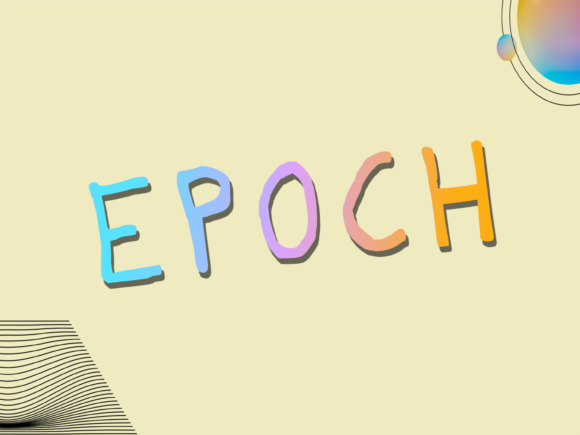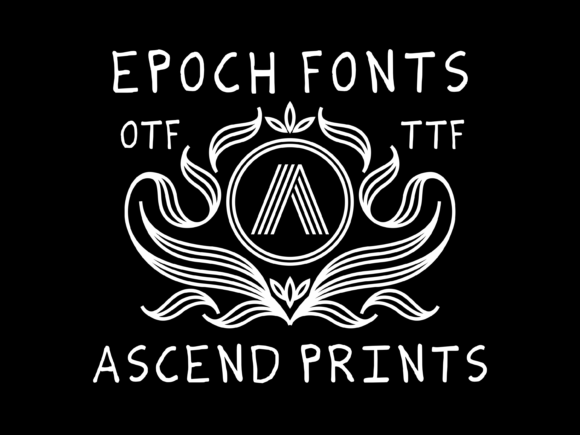
Epoch Font
About Epoch Font
Introducing Epoch, a sweet and friendly handwritten font that exudes warmth and charm. With its natural and unique style, Epoch is incredibly versatile, making it a perfect choice for a wide range of designs. The only limit is your imagination! Embrace Epoch and watch as it adds a delightful touch of sweetness and authenticity to your creative projects.
Epoch’s sweet and friendly style creates an inviting and approachable vibe. Each letter flows with a sense of playfulness and grace, as if crafted with love and care. Whether you’re working on social media graphics, quotes, invitations, or any other creative endeavor, Epoch brings a sense of joy that captivates and resonates with your audience.
The font’s versatility knows no bounds. As you explore Epoch, you’ll discover how effortlessly it complements various design projects. From cute branding to endearing greeting cards, and from children’s book illustrations to playful posters, Epoch’s friendly charm enhances your creations with its unique appeal.
Imagine using Epoch to create delightful Instagram posts. Its sweetness and warmth instantly capture attention, creating an authentic and engaging connection.
For wedding stationery with a touch of whimsy and charm, Epoch adds a sense of celebration and happiness. Whether it’s save-the-date cards or thank you notes, your stationery will exude charm and endearment.
In the digital realm, Epoch adds a friendly and approachable element to your website’s typography. It creates an inviting atmosphere, encouraging visitors to explore and connect.
Greeting cards and posters become heartfelt expressions of emotion with Epoch. The font’s sweet and friendly script conveys sincerity, making your messages truly stand out.
In conclusion, Epoch is more than just a font; it’s an embodiment of sweetness and charm. With its natural and unique style, Epoch becomes an invaluable asset for all your design projects. Embrace the delightful allure of Epoch and watch as your creations come alive with authenticity and warmth. Let your imagination soar in the sweet and friendly embrace of Epoch, the handwritten font that invites you to create with limitless possibilities.